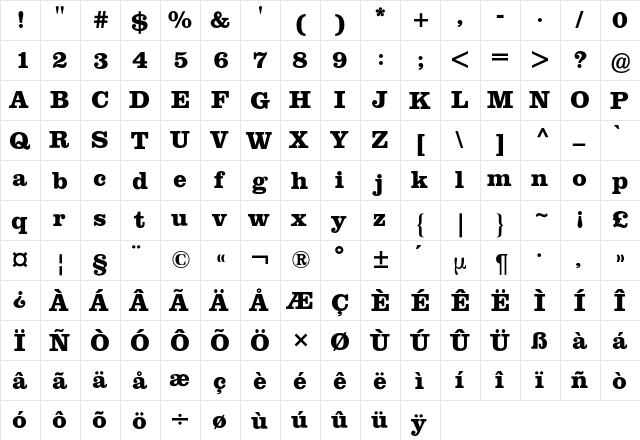
Clarendon BQ Regular
Design Context for Clarendon BQ Typeface
Clarendon BQ features prominent, blocky serifs that give it a confident, grounded presence — equally at home in editorial settings and bold branding work.
Suited to magazines, political campaign materials, bold packaging, and any setting where authority matters.
Pro Tip: Use Clarendon BQ for headlines and subheadings where its slab serifs can make an impression. It also holds up well in mid-size body copy thanks to its sturdy construction.